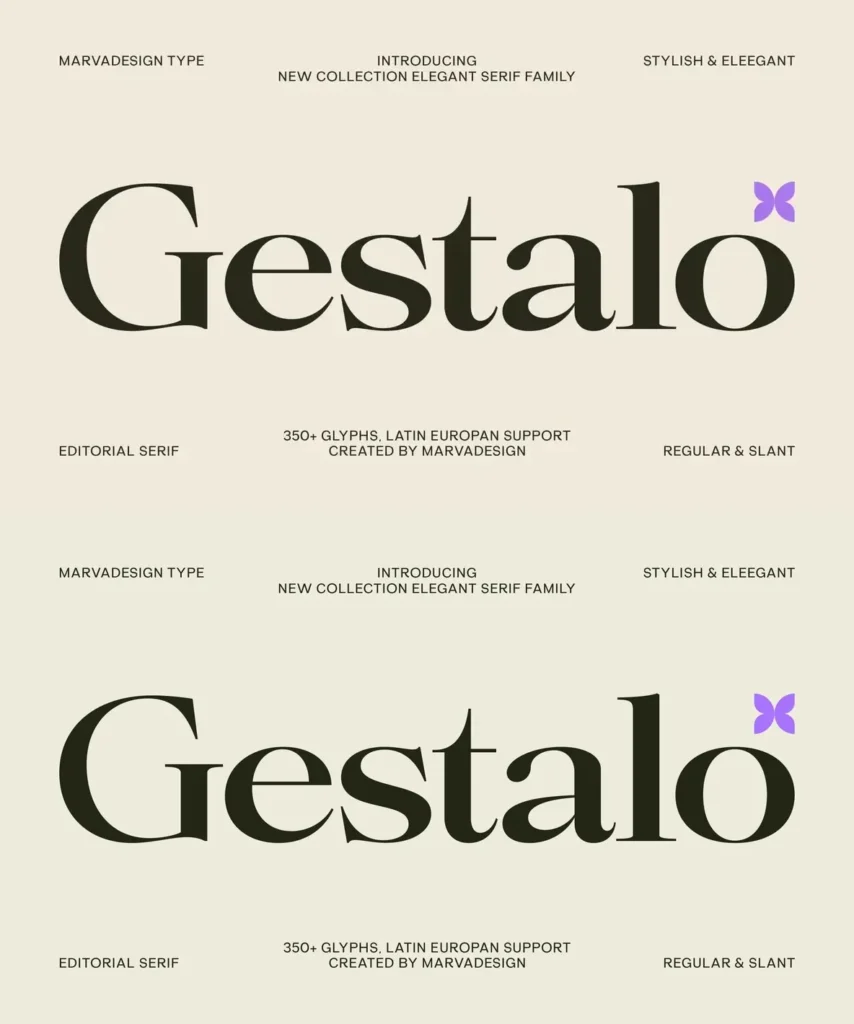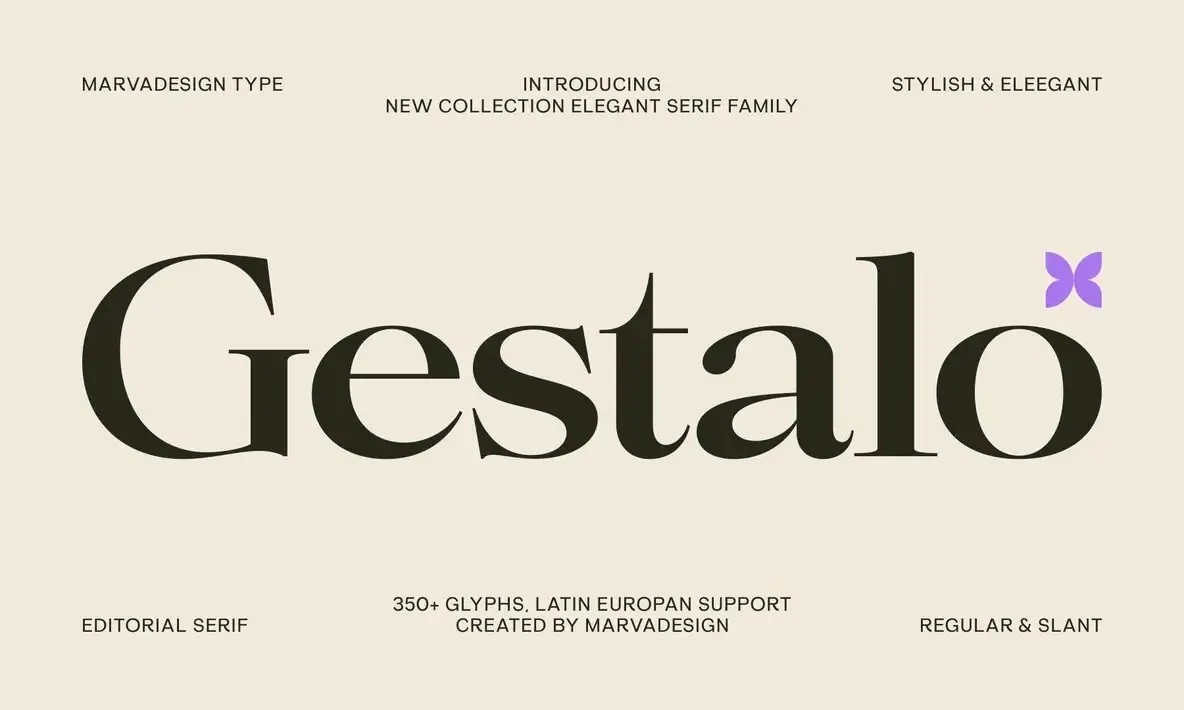
Gestalo: Editorial poise, quietly contemporary
An elegant serif font, Gestalo blends classic editorial character with modern refinement. Clean contrast between thick and thin strokes gives the letterforms a poised rhythm, with graceful curves, sharp serifs, and carefully considered details. The result feels timeless on the page, yet crisp in contemporary layouts.
Designed by Marvadesign, this font family offers a vast range of weights and slanted styles for editorial design, branding, and upscale projects that require typographic authority. Gestalo includes over 350 glyphs and extensive Latin European language support, balancing visual beauty with day-to-day practicality for professional typography.